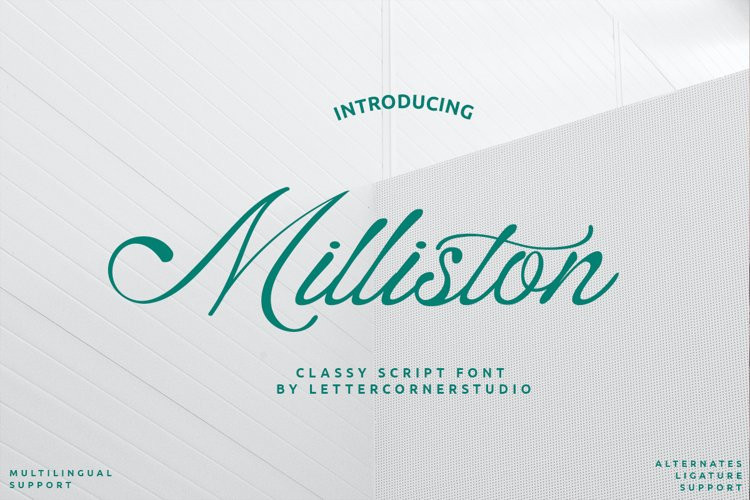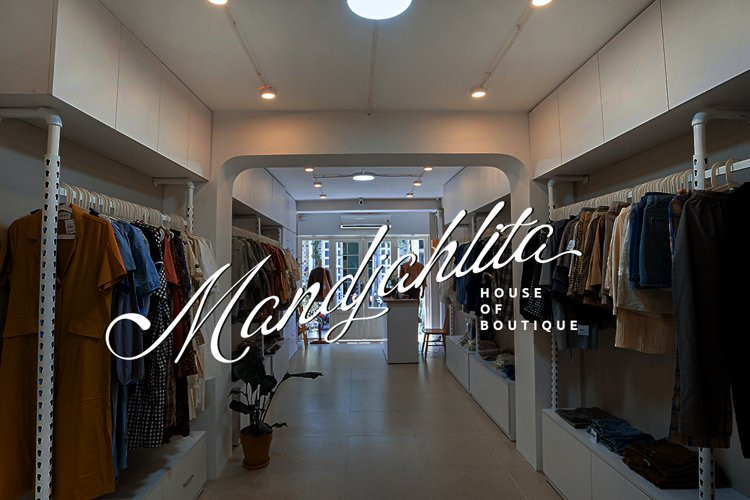
Milliston Font
Milliston FontMilliston script is a modern classic style script font inspired by classic handwriting in book. This font is complete with 90+ stylistic sets, Contextual Alternative, ligatures and also multi-language support which adds to the aesthetic that makes your work more interesting.
This font is perfect for your creative projects such as Logotype, printed quotes, invitations, cards, product packaging, headers, Letterhead, Apparel , Web design, Magazine, Book, etc.